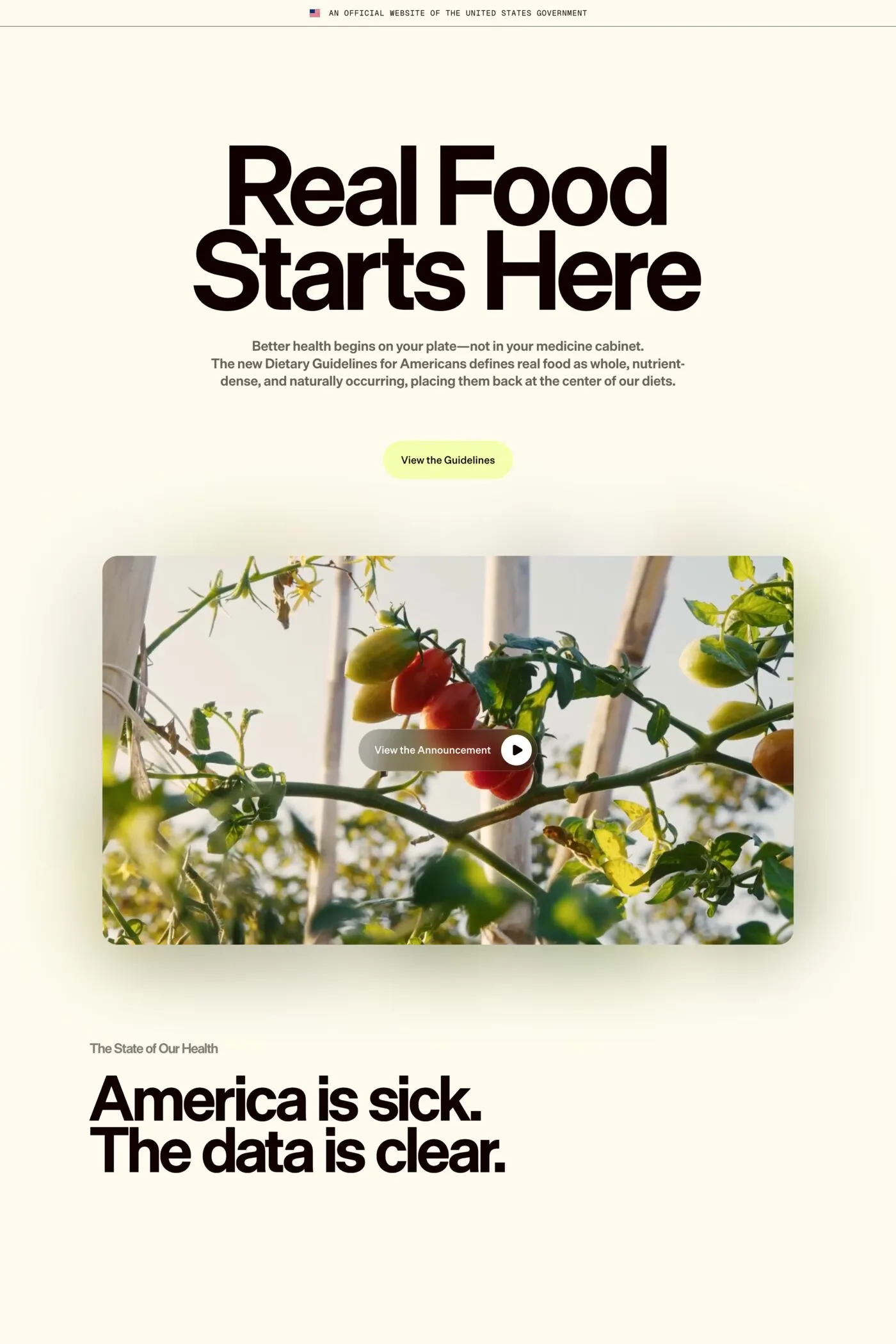
Die Grotesk is a sans-serif typeface from Klim Type Foundry.
Die Grotesk was shaped in the long shadow of Helvetica, a typeface both revered and resented in equal measure. Graphic designers love it. Type designers hate it. Endlessly revived and resold, simultaneously banal and sublime, its forms feel inevitable.